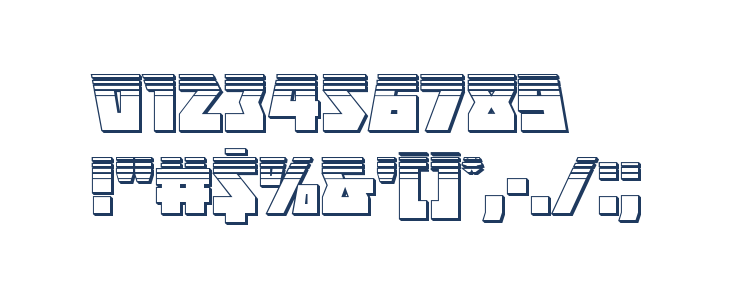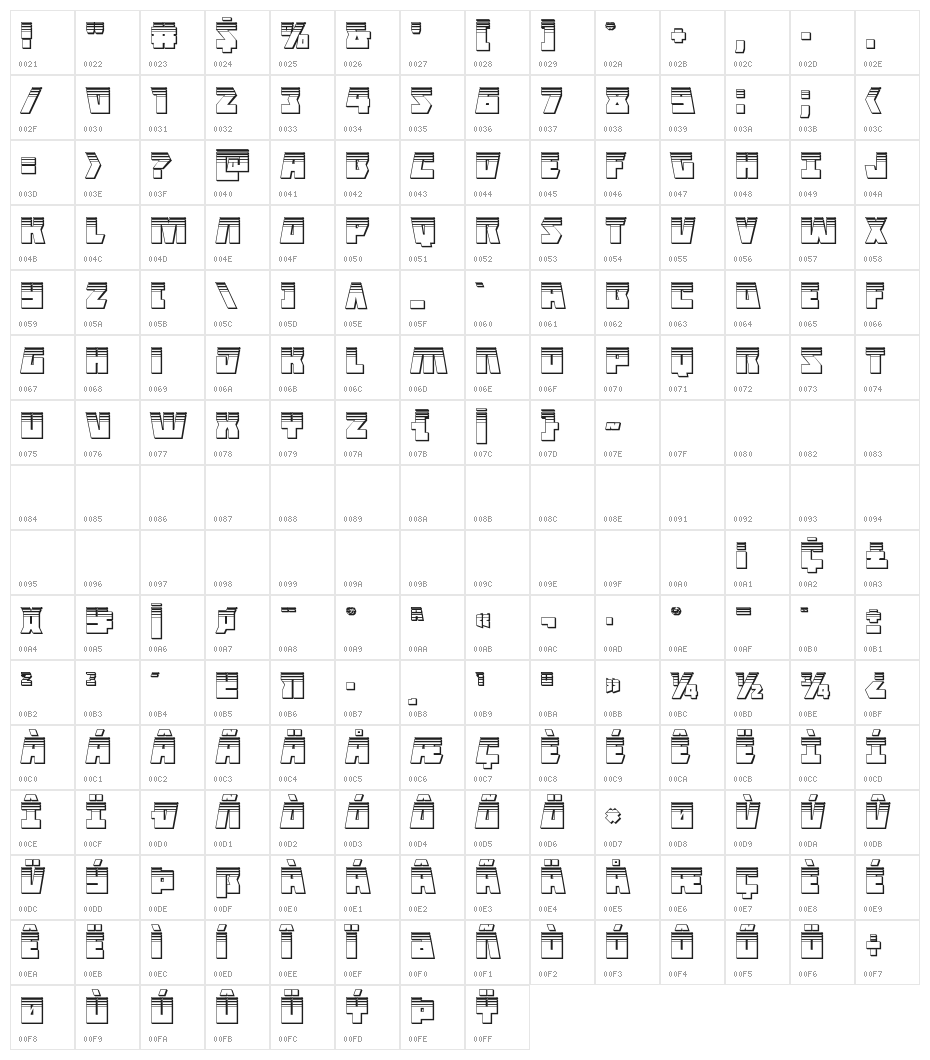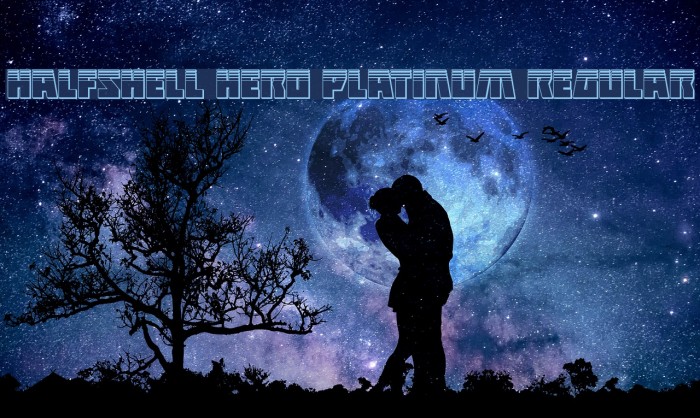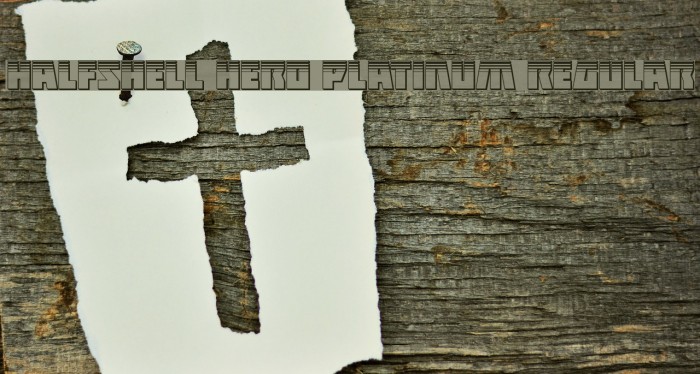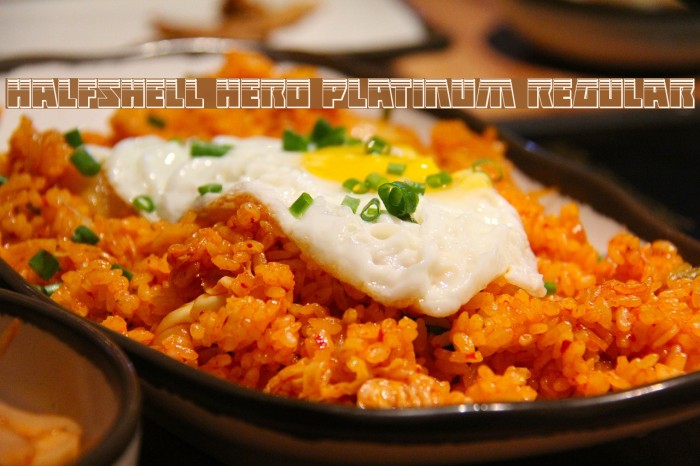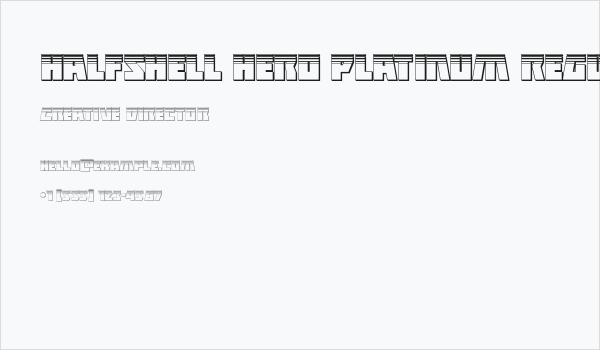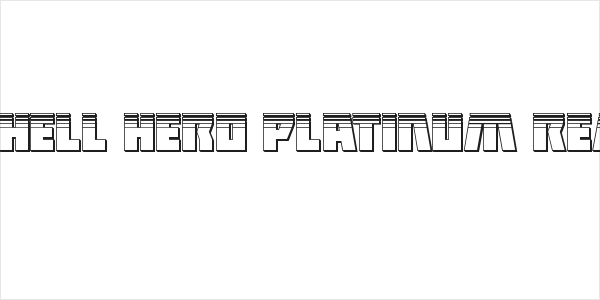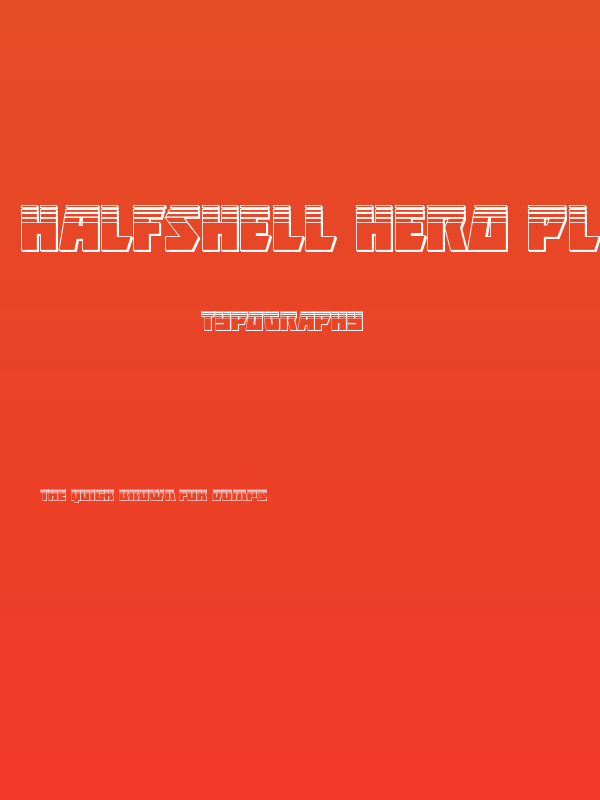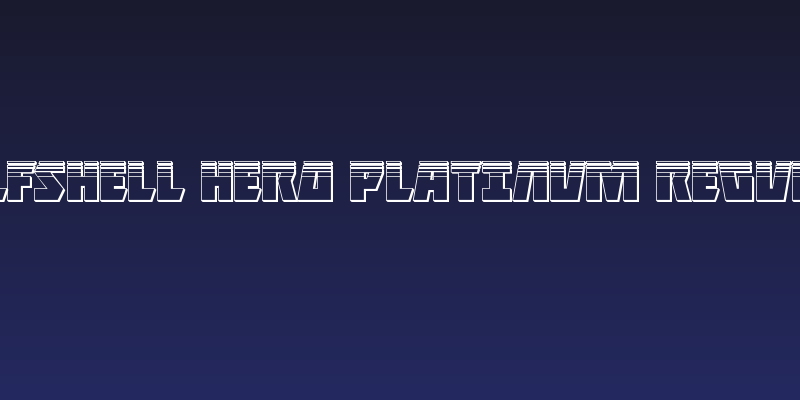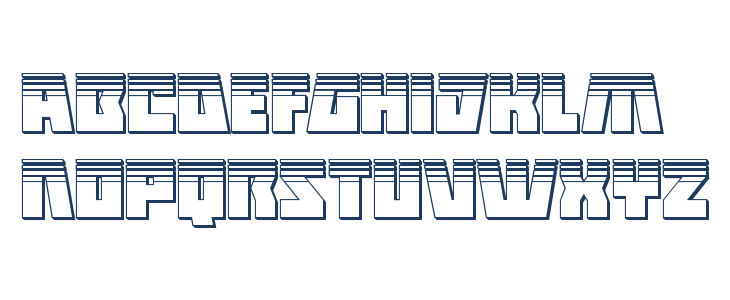
Halfshell Hero Platinum Regular Font
Halfshell Hero Platinum Regular Description
This font features a bold, geometric design with a three-dimensional effect, characterized by its layered, block-like structure. The uppercase and lowercase letters share a consistent style, with sharp angles and a futuristic appearance. The numbers and special characters maintain this cohesive look, making the font suitable for eye-catching designs. Its unique style is reminiscent of retro-futuristic themes, combining modern aesthetics with a vintage touch. The font's distinct lines and shapes create a sense of depth and movement, making it ideal for projects that require a strong visual impact.
| Overall Style | Retro-Futuristic |
| Proposed Projects | Ideal for video game titles, sci-fi movie posters, tech branding, and futuristic-themed events. |